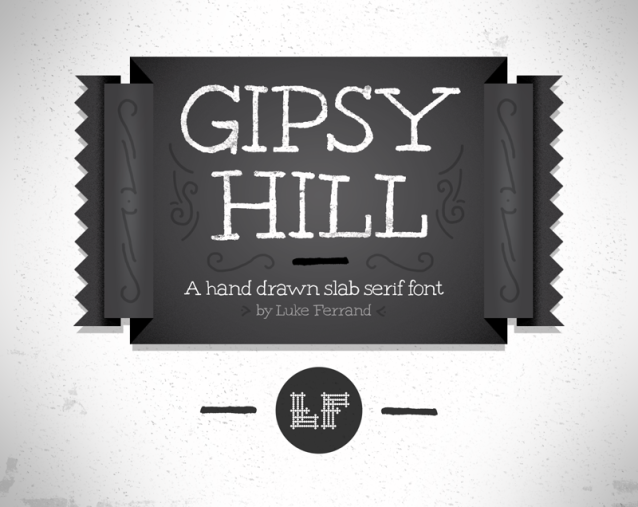
Gipsy Hill Font
Gipsy Hill Font is a slab serif typeface that combines bold structure with a hand-drawn aesthetic. Its thick, square serifs create a strong and confident feel, while the slightly uneven and textured strokes add a natural, organic touch. Blending the sturdiness of slab serif with the creativity of handcrafted lettering, this font stands out as a distinctive choice for designs that need personality and visual impact.